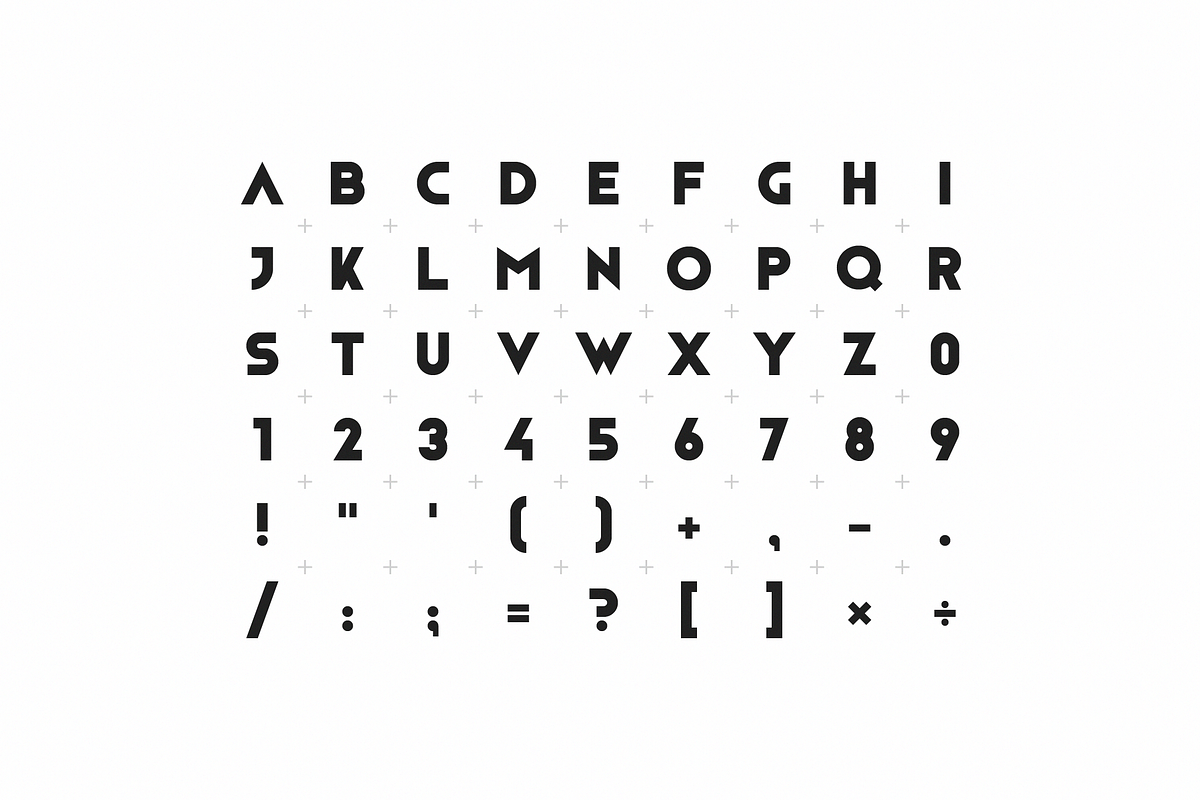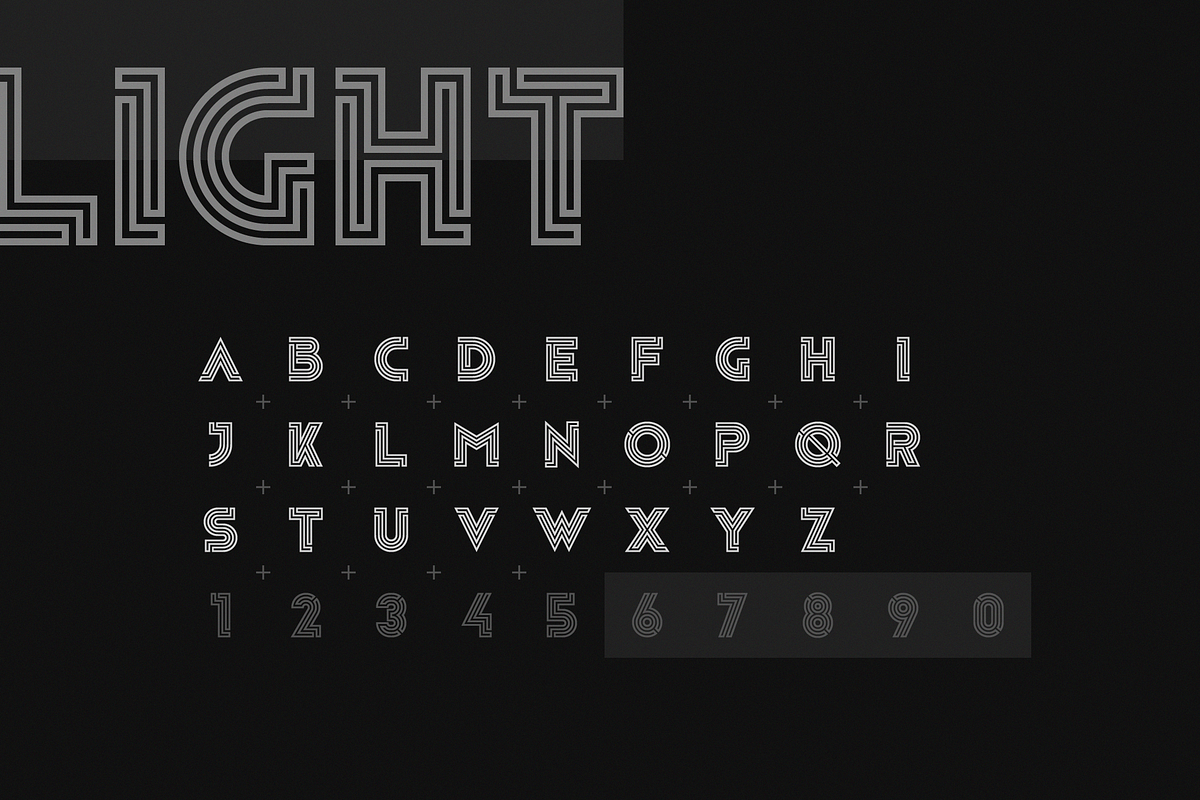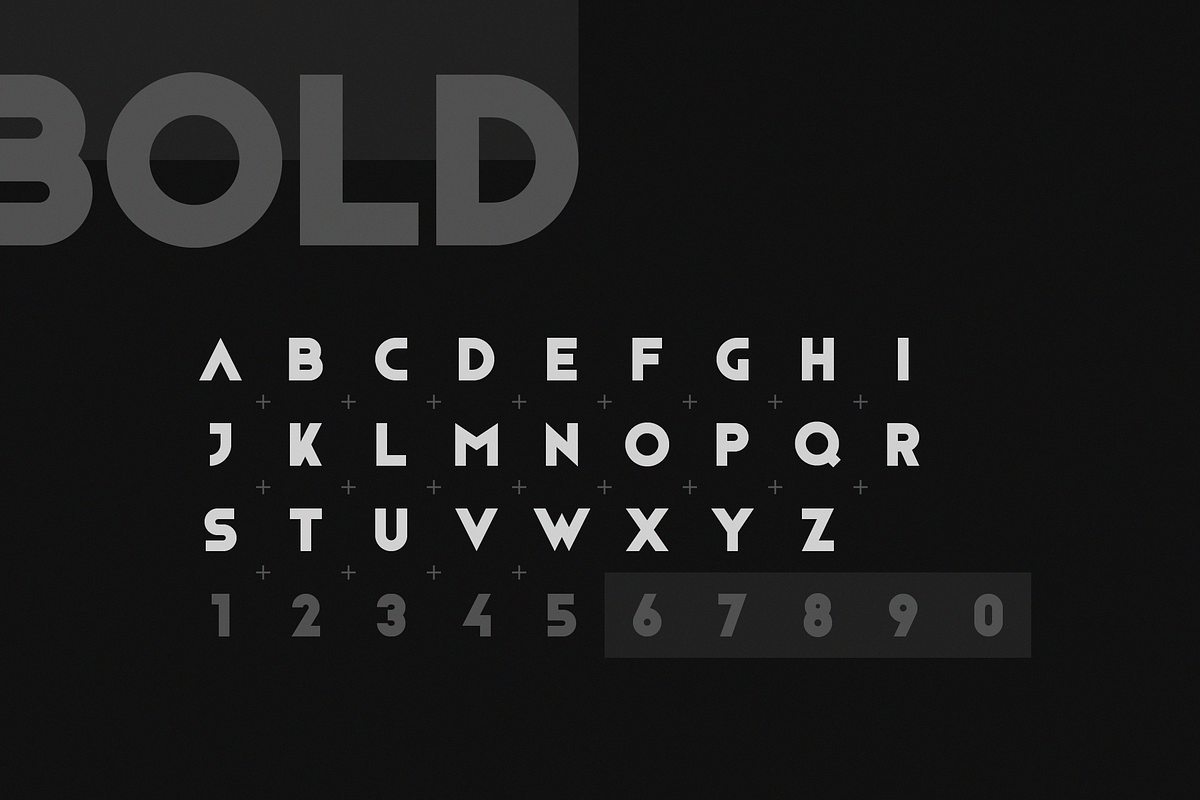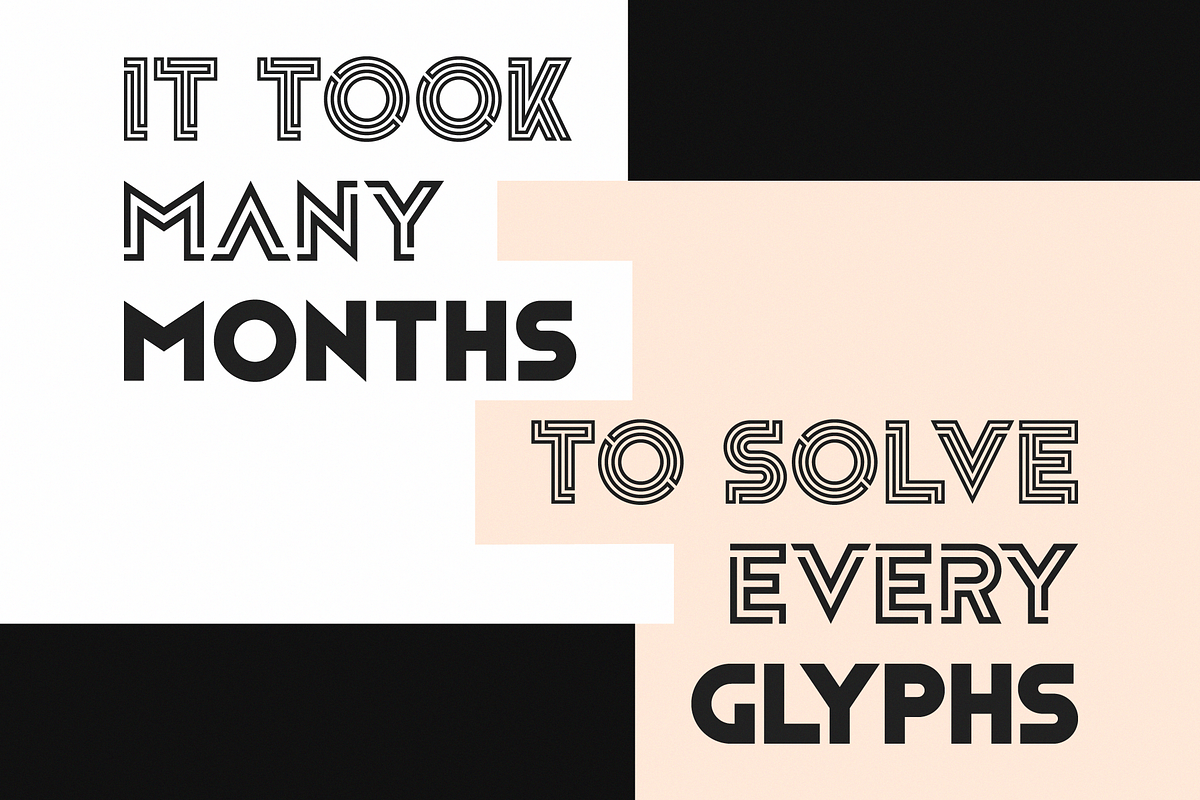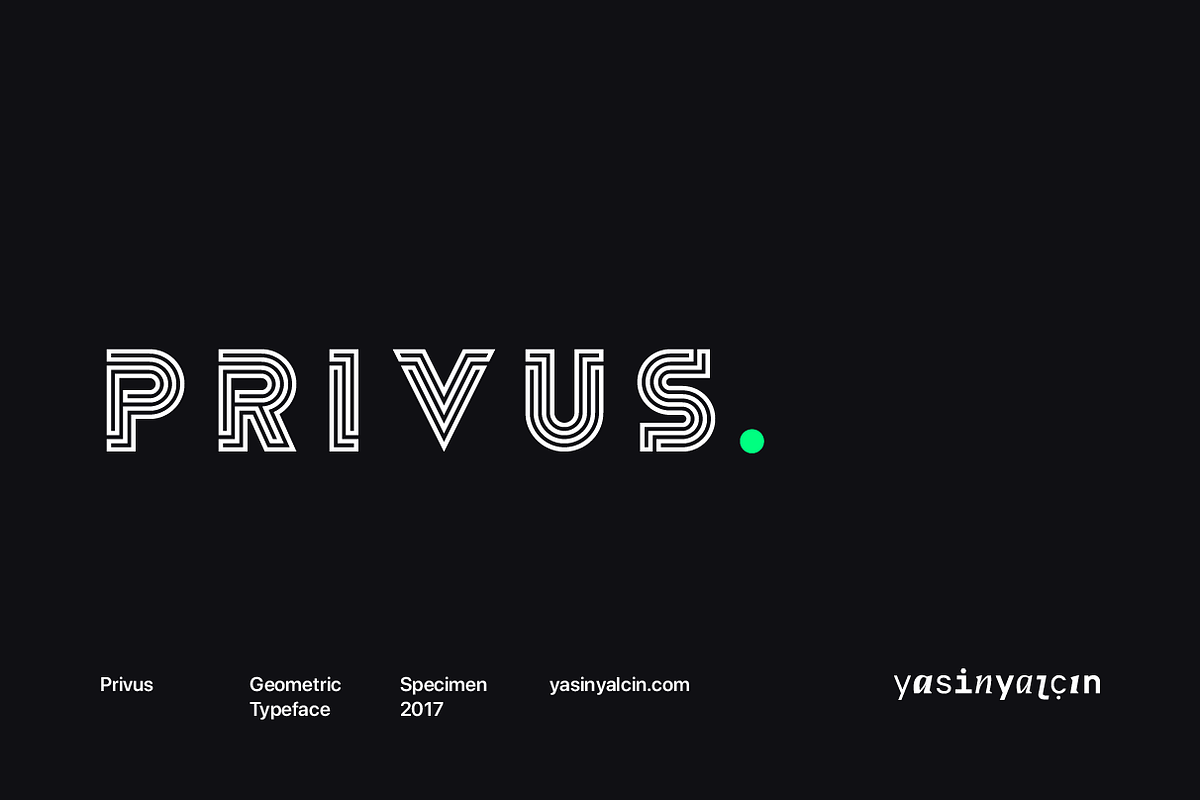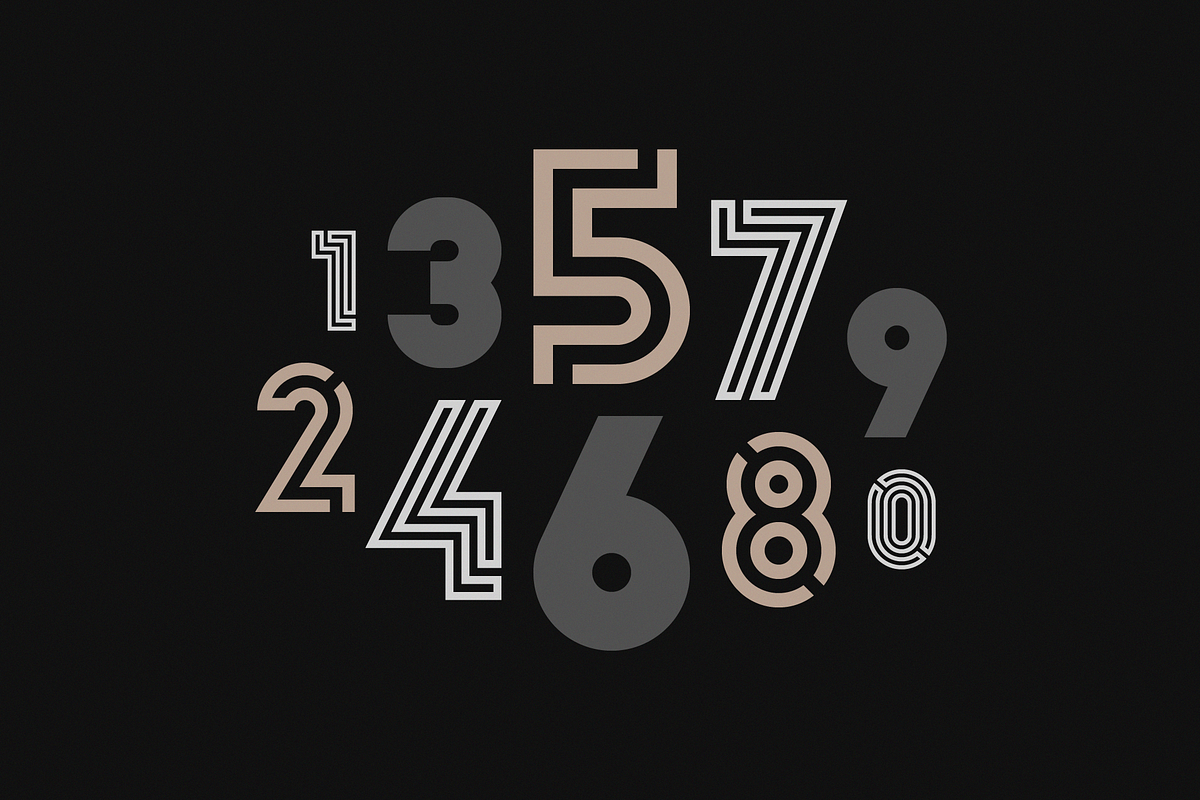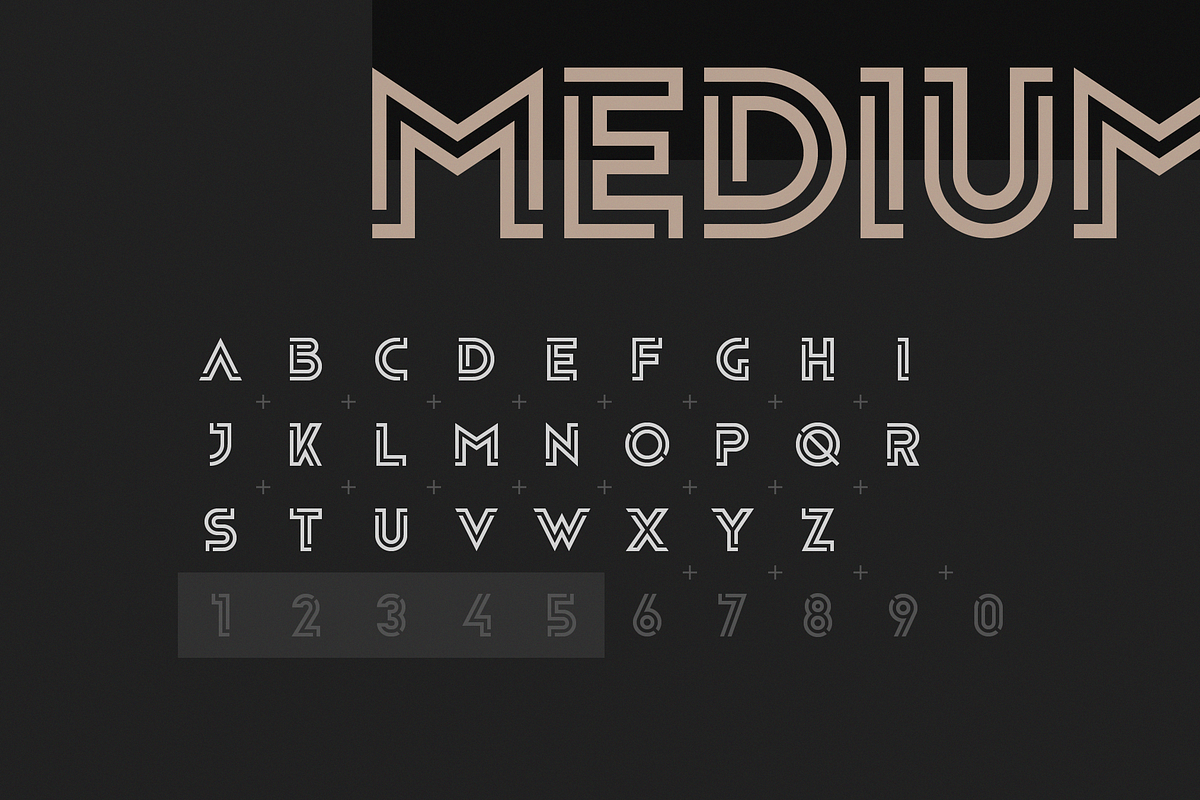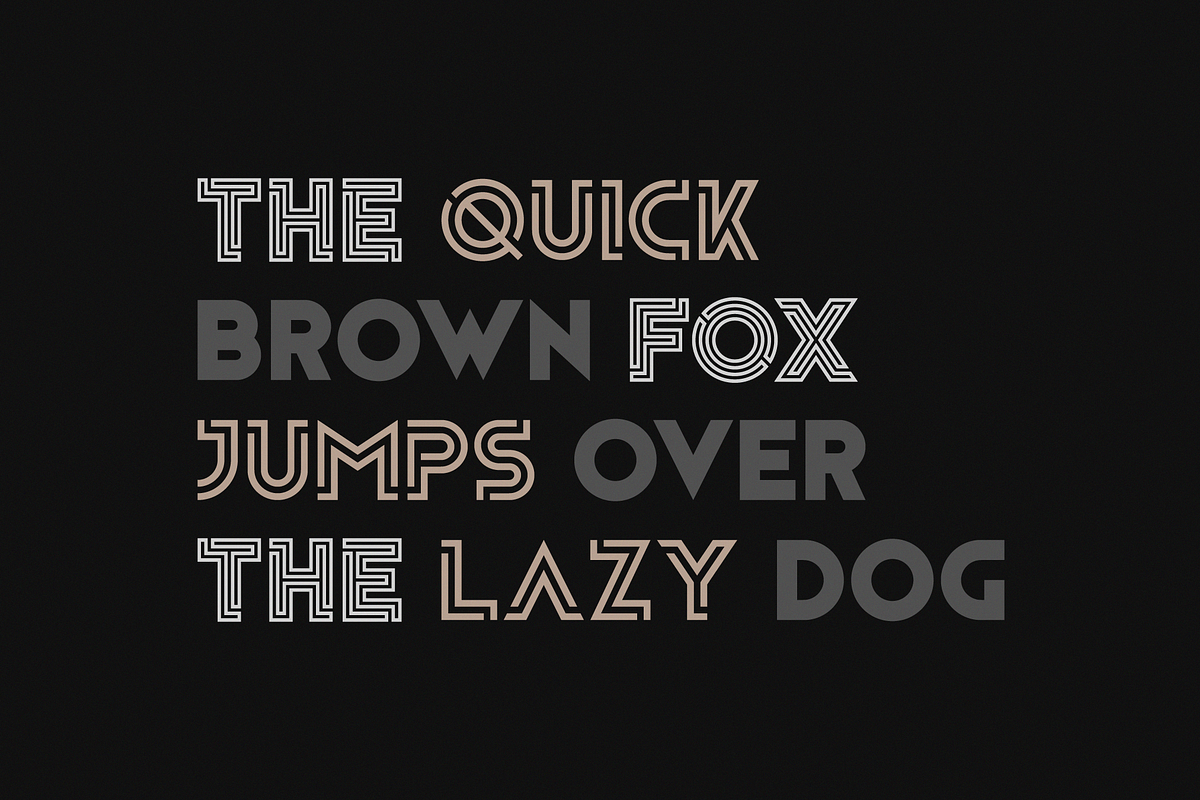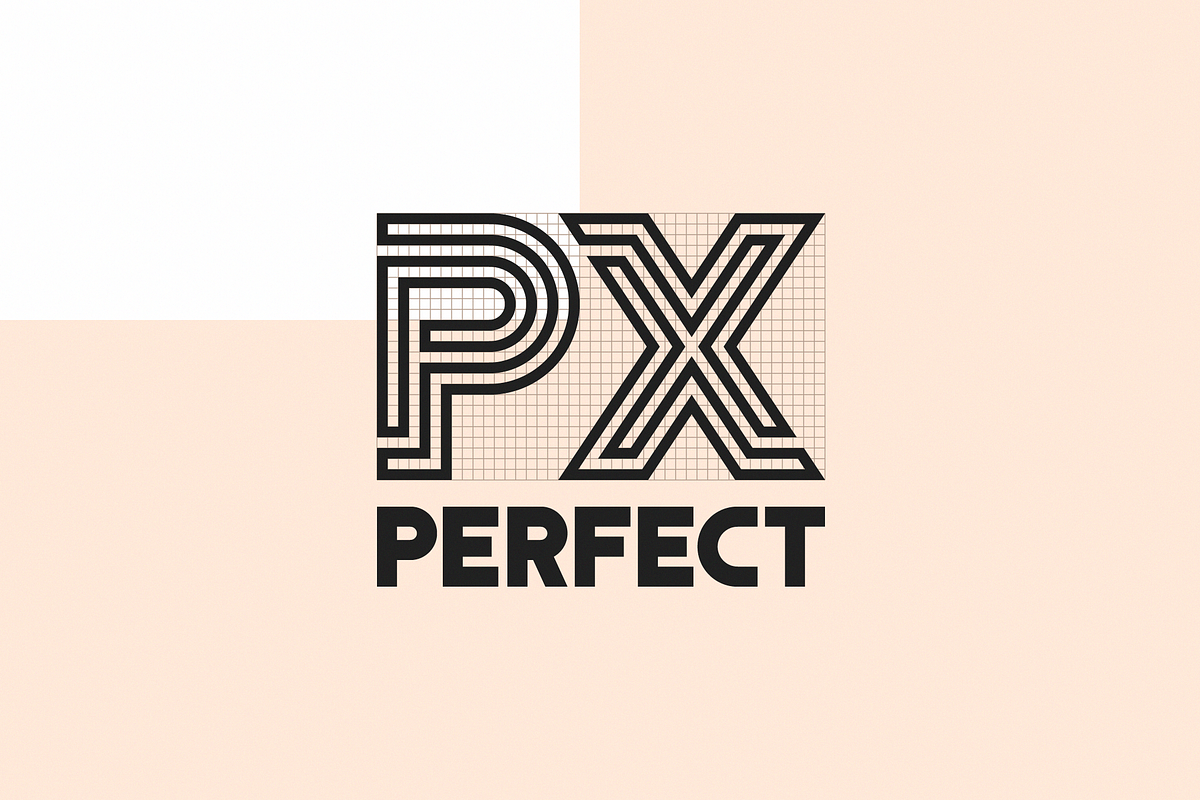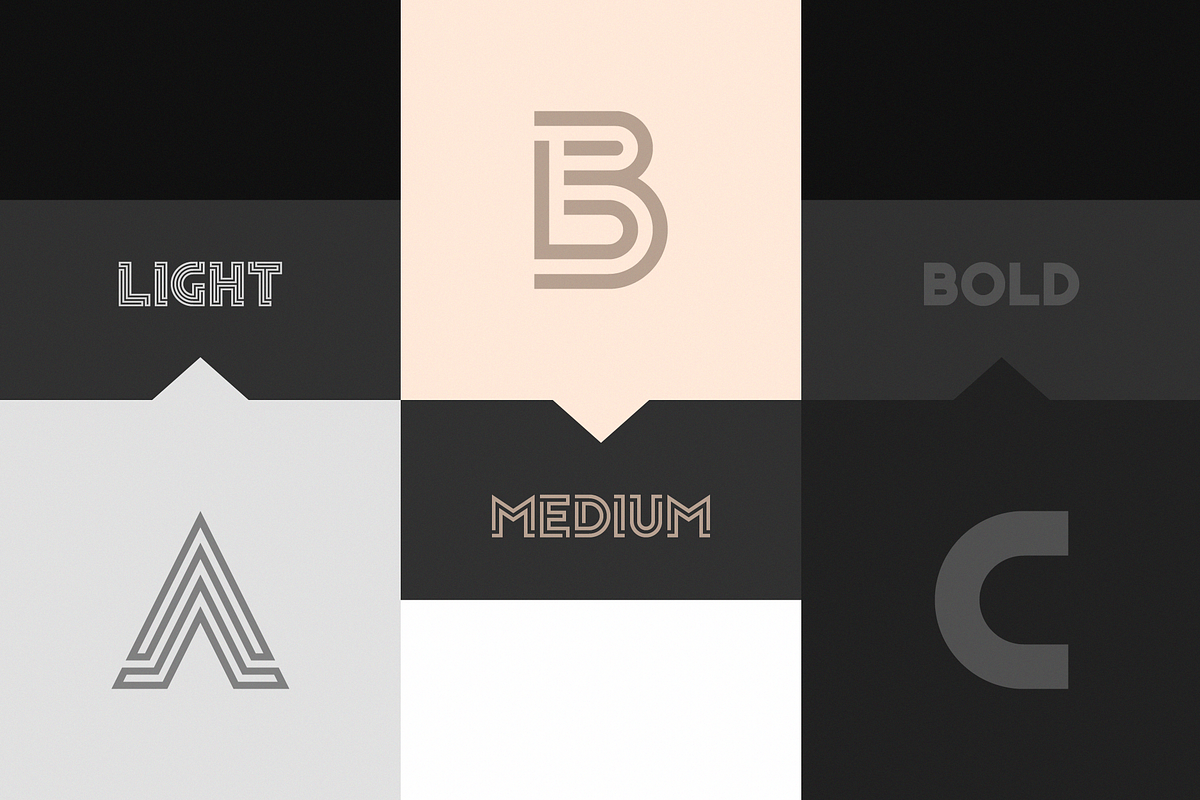
Privus Type Family
Privus is a minimal, modern, geometric and versatile display type family which inspired by labyrinths and meanders. It is great for display purpose such as logotype, web, poster, book, magazine, packaging and headline as well. It features uppercase letters, numbers and punctuations. It took many months "to solve" every glyphs.
Contains three styles:
- Privus Light
- Privus Medium
- Privus Bold